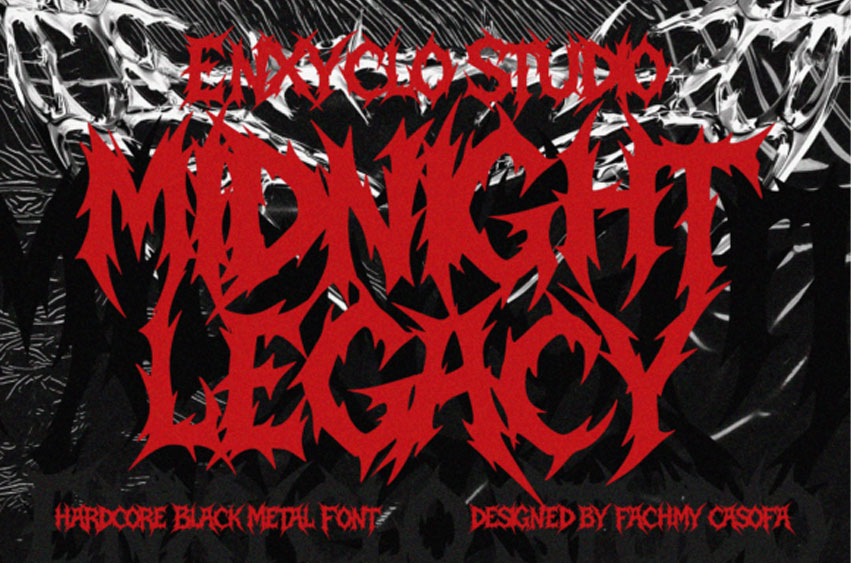
Midnight Legacy Font
Midnight Legacy Font is A typeface cast in the unforgiving fires of black metal, defiantly dancing on the fine line between chaos and control, and expressing an unyielding creative spirit. Envision the raw force of heavy metal, the underworld music scene, and visual statements transformed into typography – MIDNIGHT LEGACY brings it to life.
This font, with its keen, jagged shapes and antagonistic structure, exudes the essence of nonconformity, fierce intensity, and extreme creativity. Its characters are skillfully shaped with coarse textures and tribal-inspired minutiae, resonating an ambiance of ancient darkness fused with contemporary metal aesthetics. The design magnificently translates the visual rhetoric of thrash metal, hardcore, metalcore, and extreme rock scenes, culminating in an artful equilibrium between chaos and discipline. MIDNIGHT LEGACY is a forceful, expressive, and exceedingly distinctive font.
Tailored for creators with a penchant for reinventing norms, this typeface asserts a commanding presence that is unmistakably appealing for music and alternative culture ventures. From adorning album covers, band logos, and tattoo design, to underground event posters and merchandise artwork, MIDNIGHT LEGACY injects each work with a raw, aggressive character. Its remarkable forms induce an impression of dynamism and ferocity that command attention.
Veering towards the darker side, unwaveringly bold, and powerfully assertive, MIDNIGHT LEGACY goes beyond being just a font – it stands as a visual battle cry for those drawn to the soul of metal. Seamlessly merging timeless aesthetics of extreme music with modern designs, it transforms plain text into an indelible beacon of strength, defiance, and creative liberation.
An unmatched choice for projects in gothic & dark art, alternative streetwear, extreme music social media content, custom band emblems and aggressive headline typography.